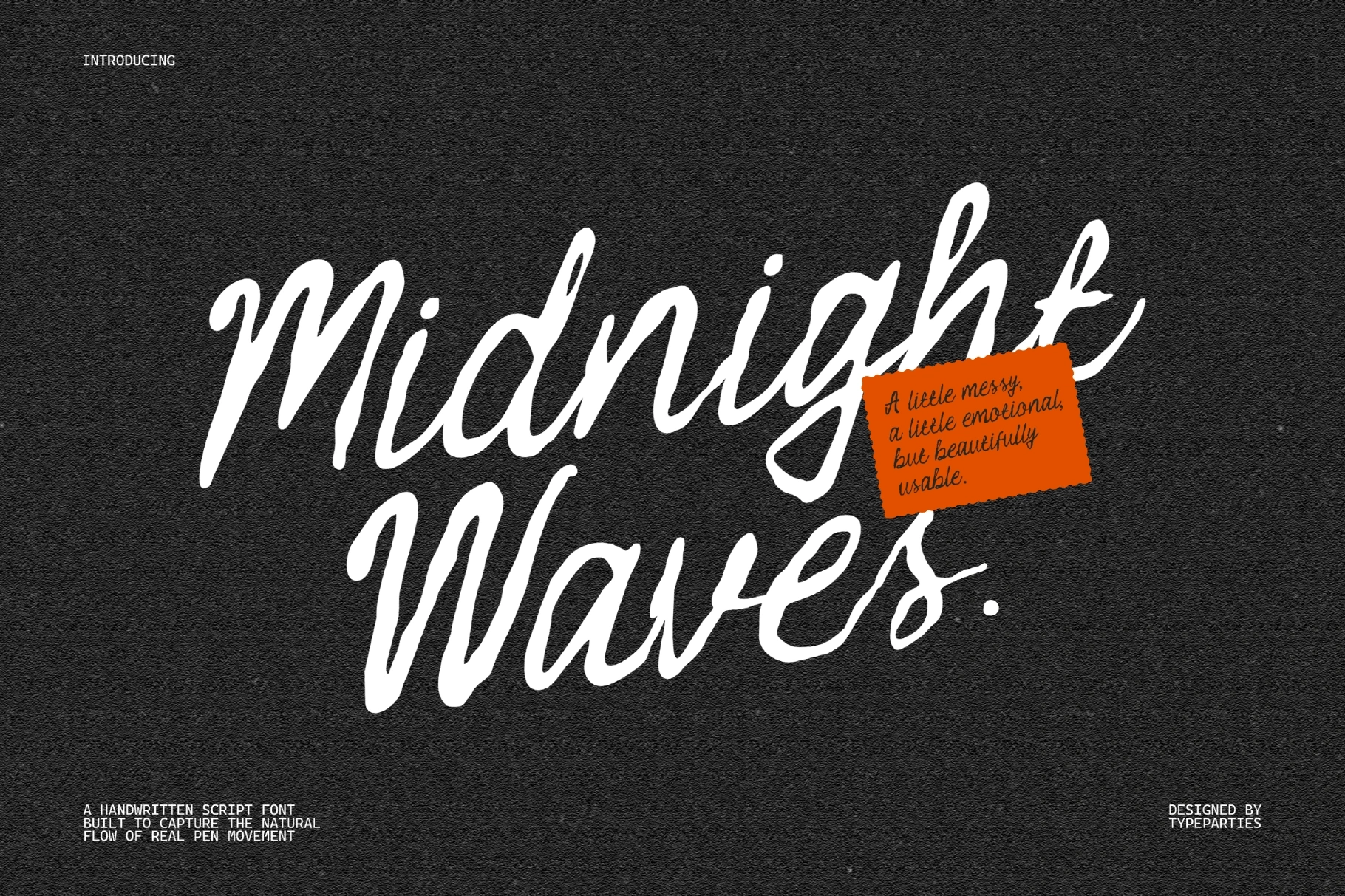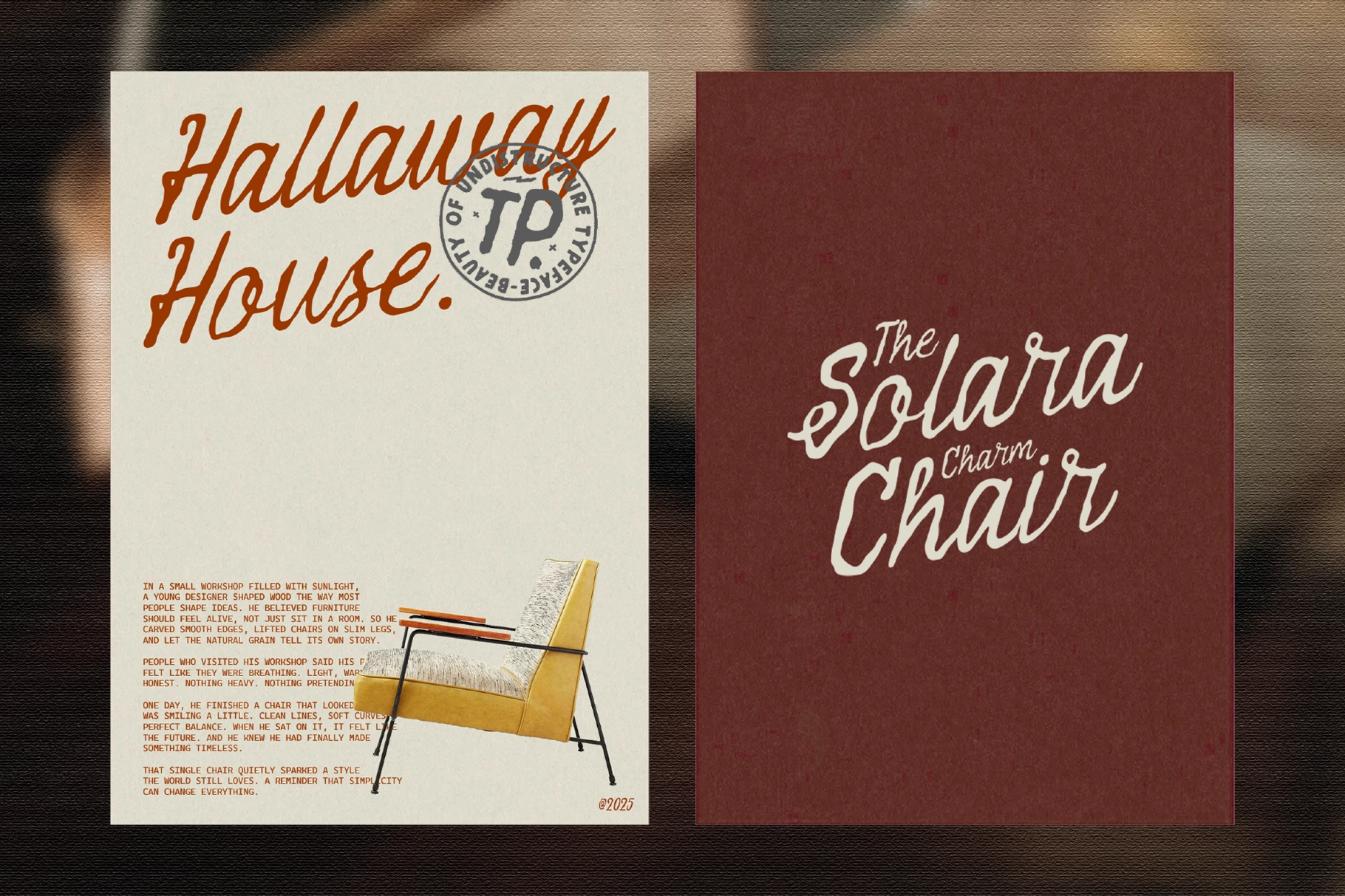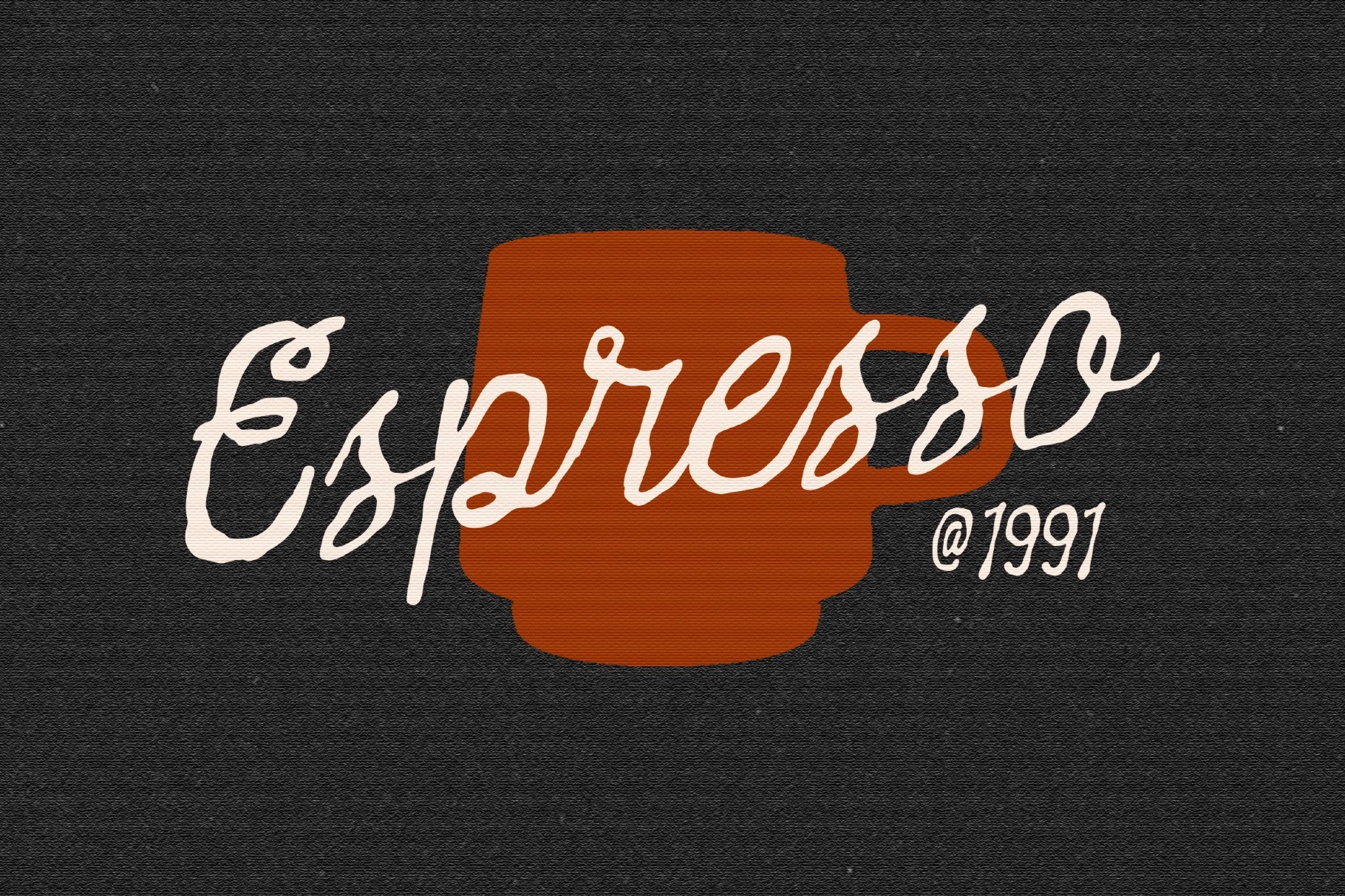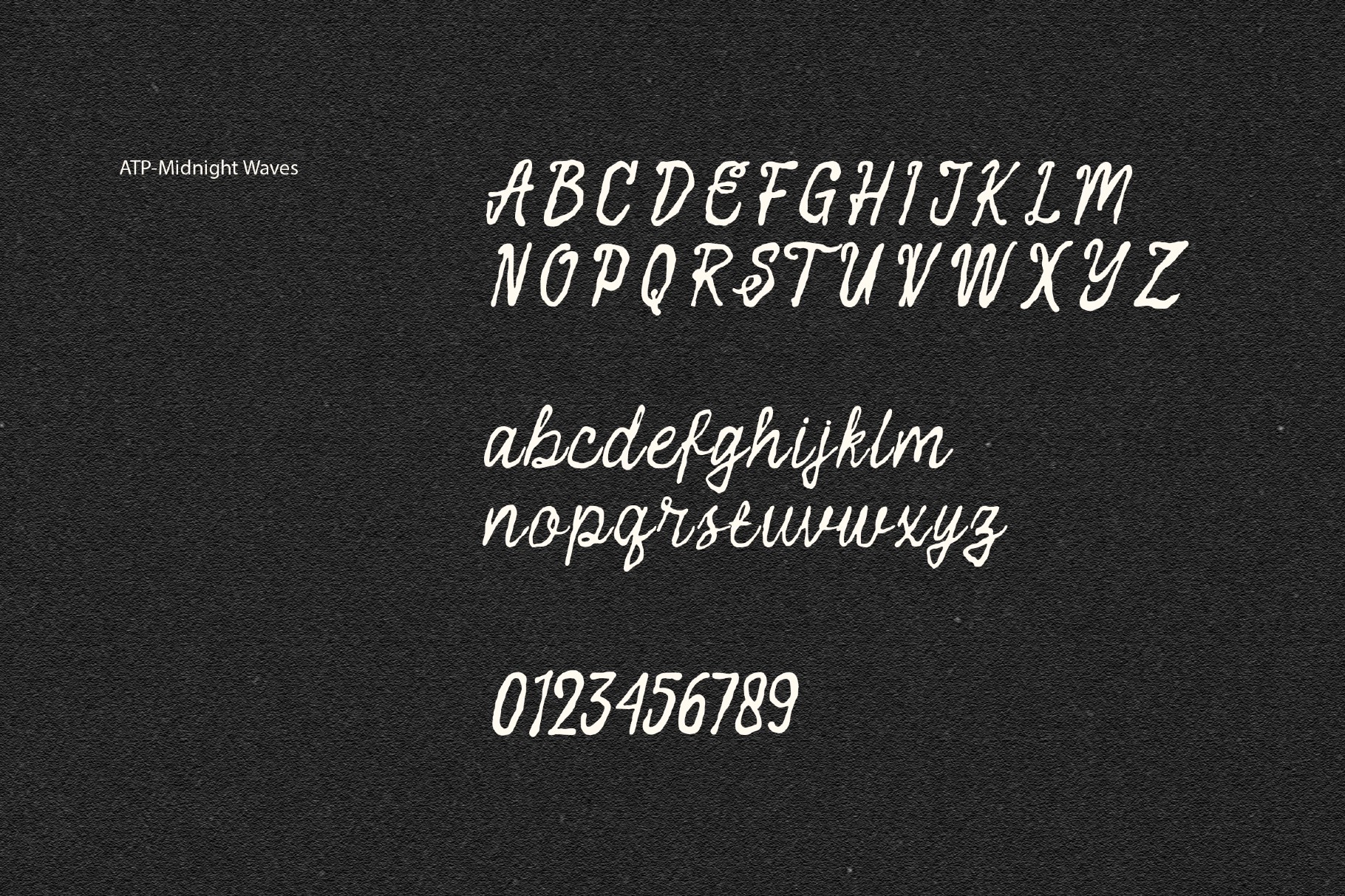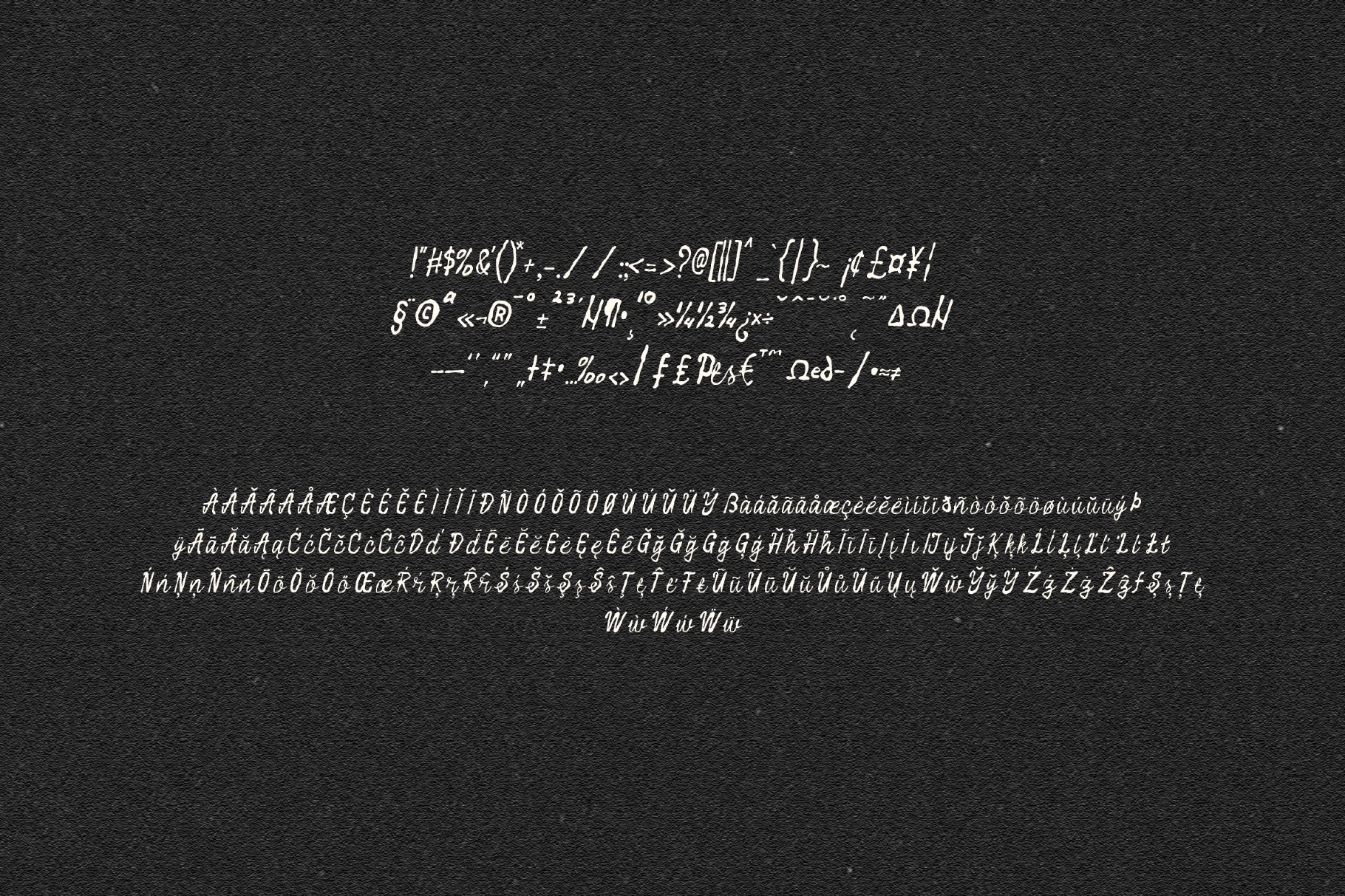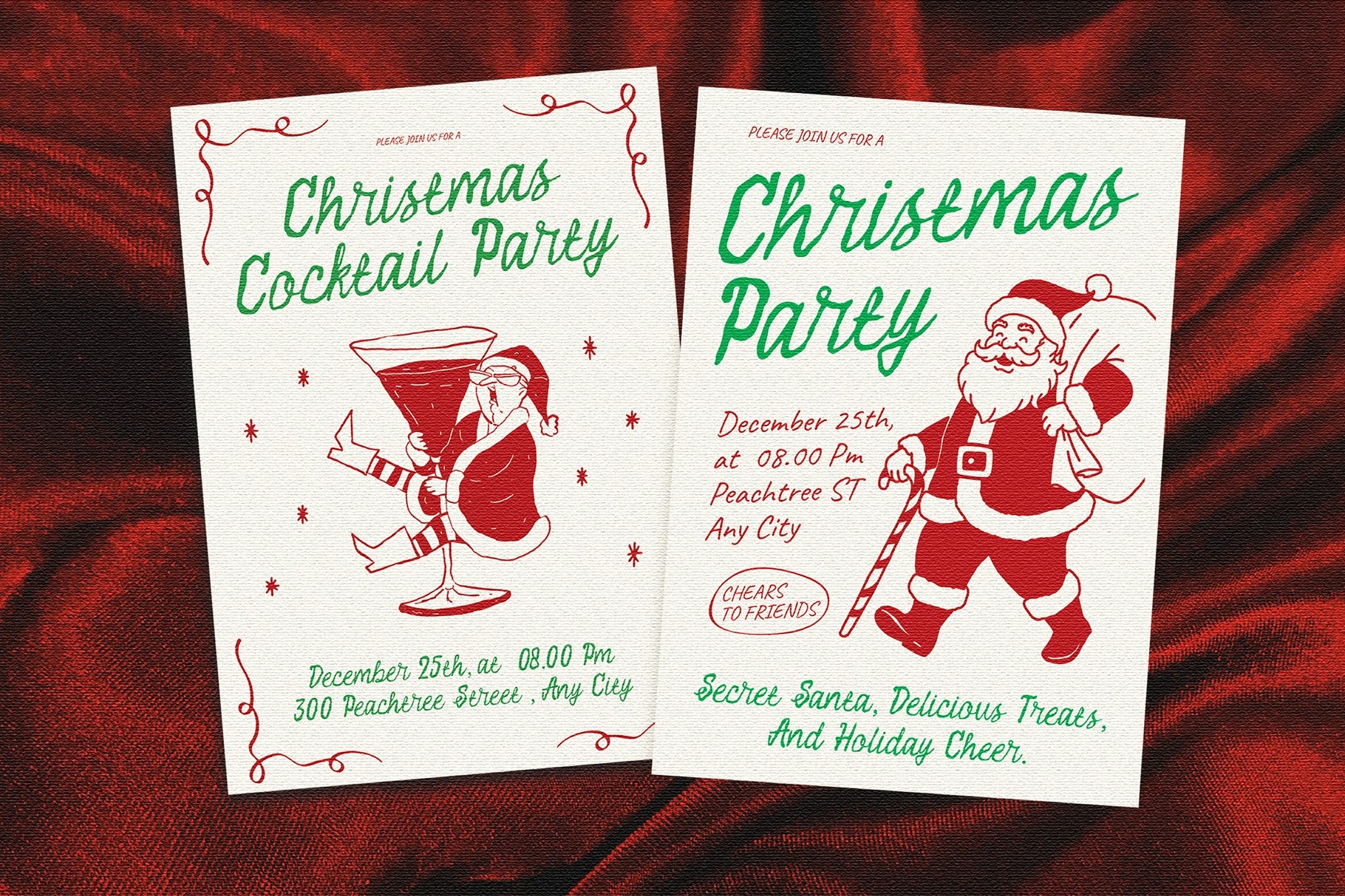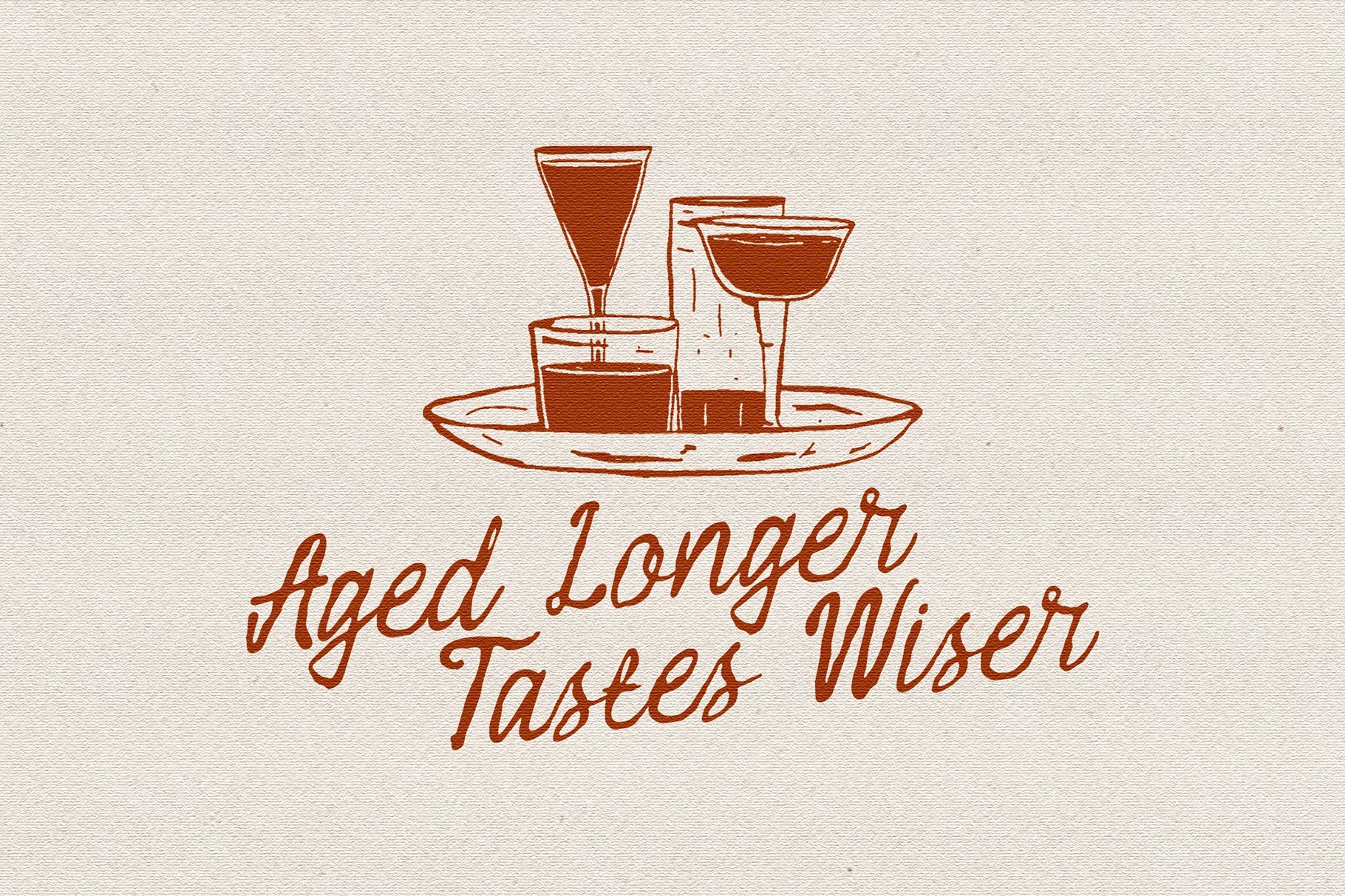
Midnight Waves - Handwritten Script Font
This expressive script has a loose pen rhythm, rounded curves, and casual irregular strokes that keep every word personal without looking overworked. The letterforms are soft, fluid, and slightly messy in the right places — like a note written at 1 a.m. with decent coffee and poor boundaries.
Midnight Waves works well for logo signatures, boutique branding, product packaging, café menus, lifestyle quotes, social media graphics, greeting cards, stationery, editorial titles, album artwork, merch prints, and more. It brings an emotional, human character to designs that need charm, movement, and a clear hand-drawn voice.
• Numerals, punctuation
• Symbols